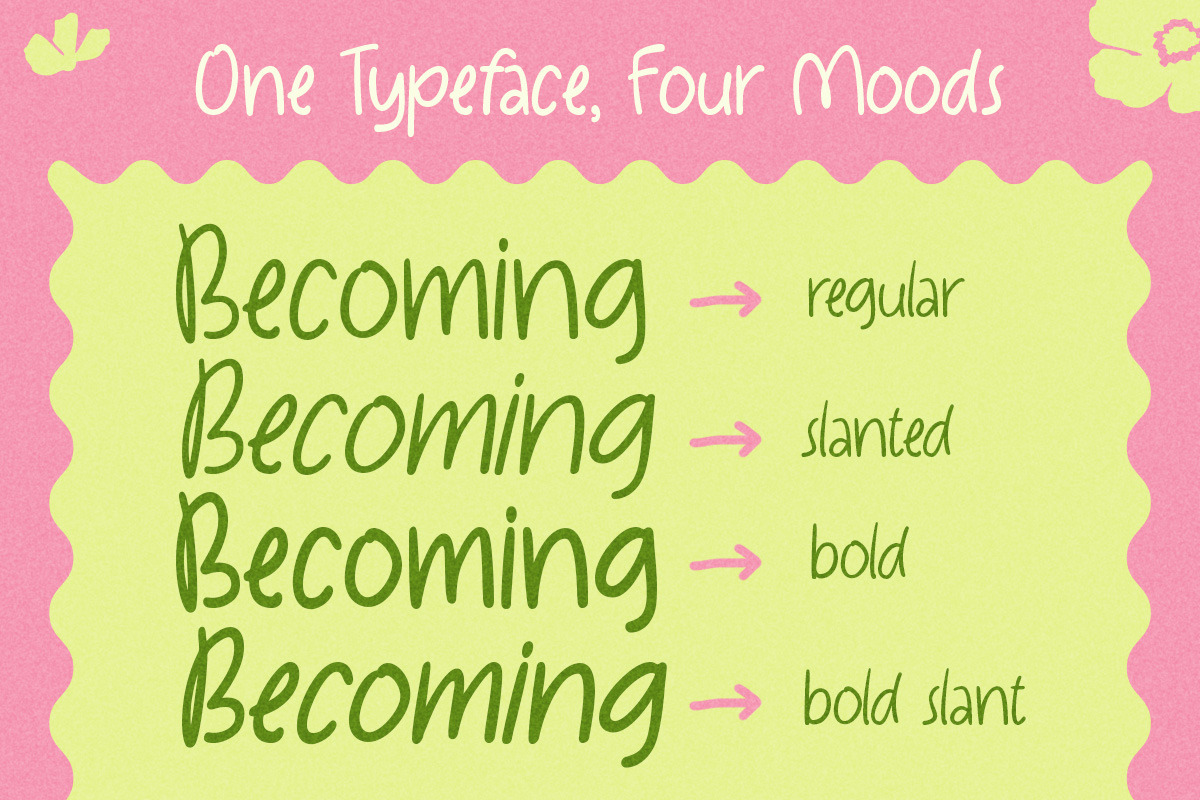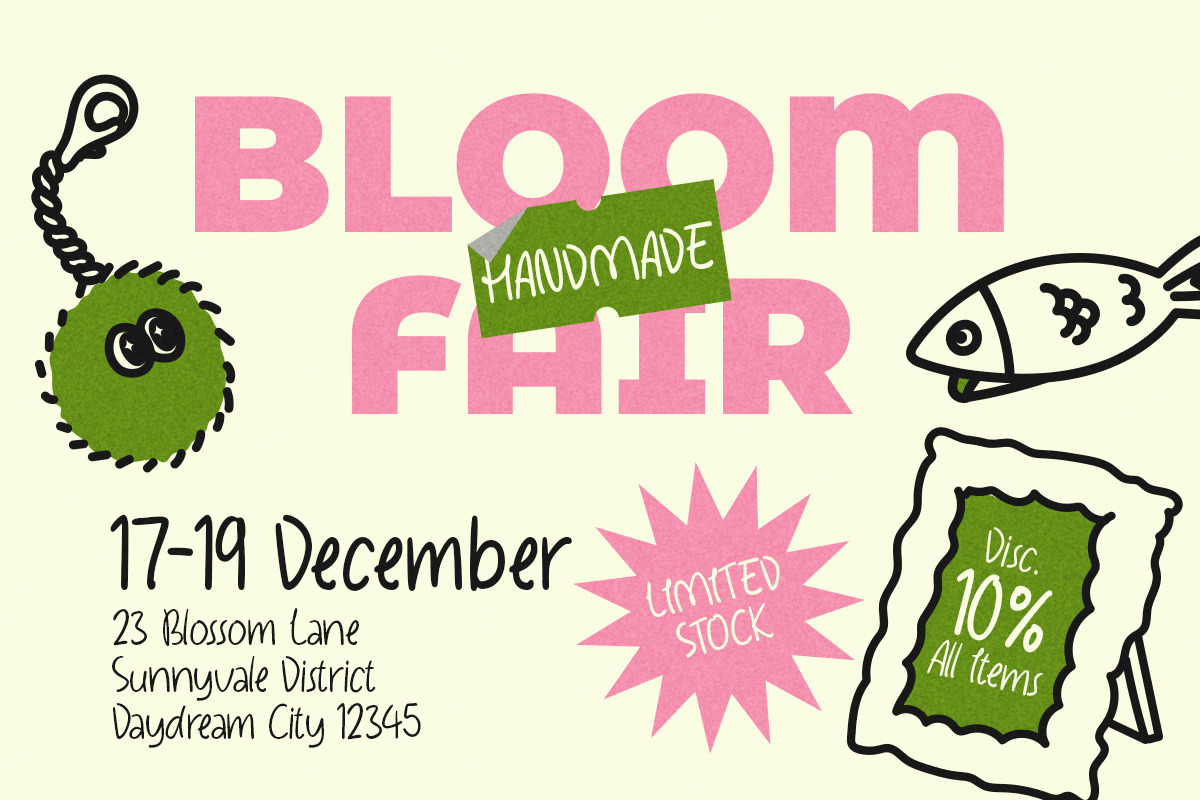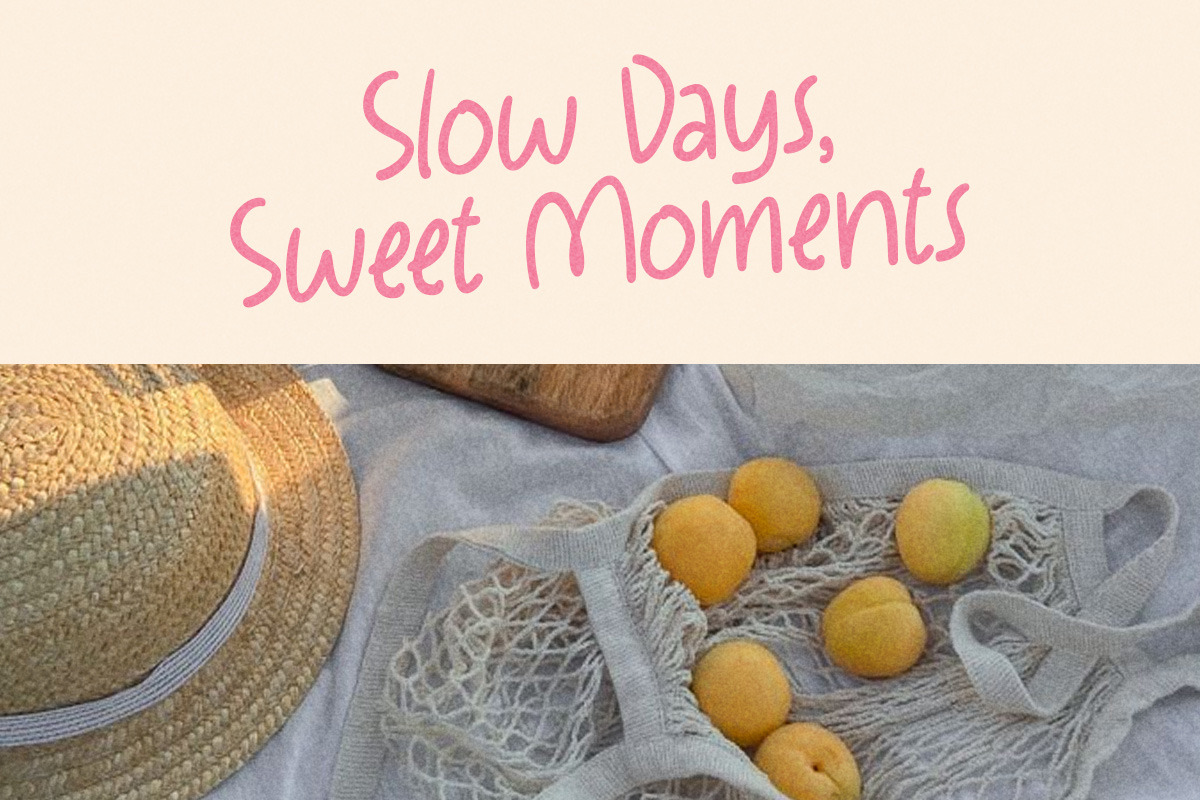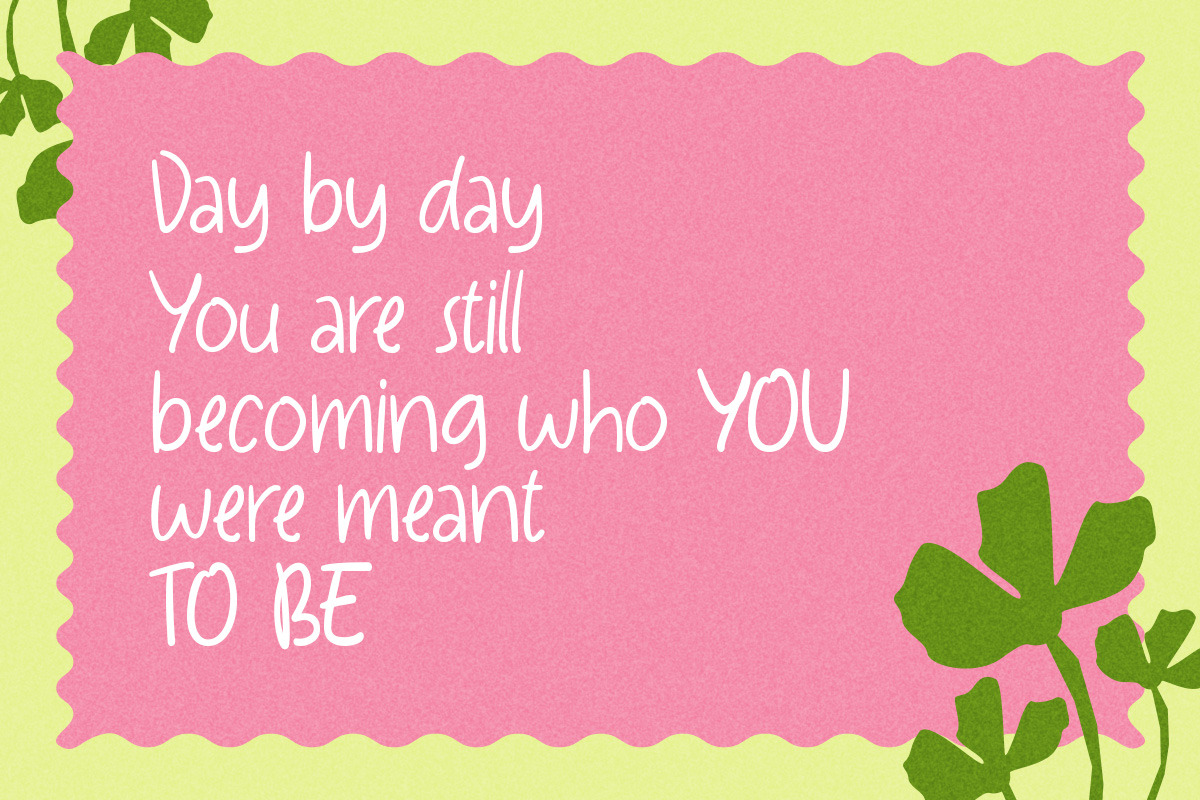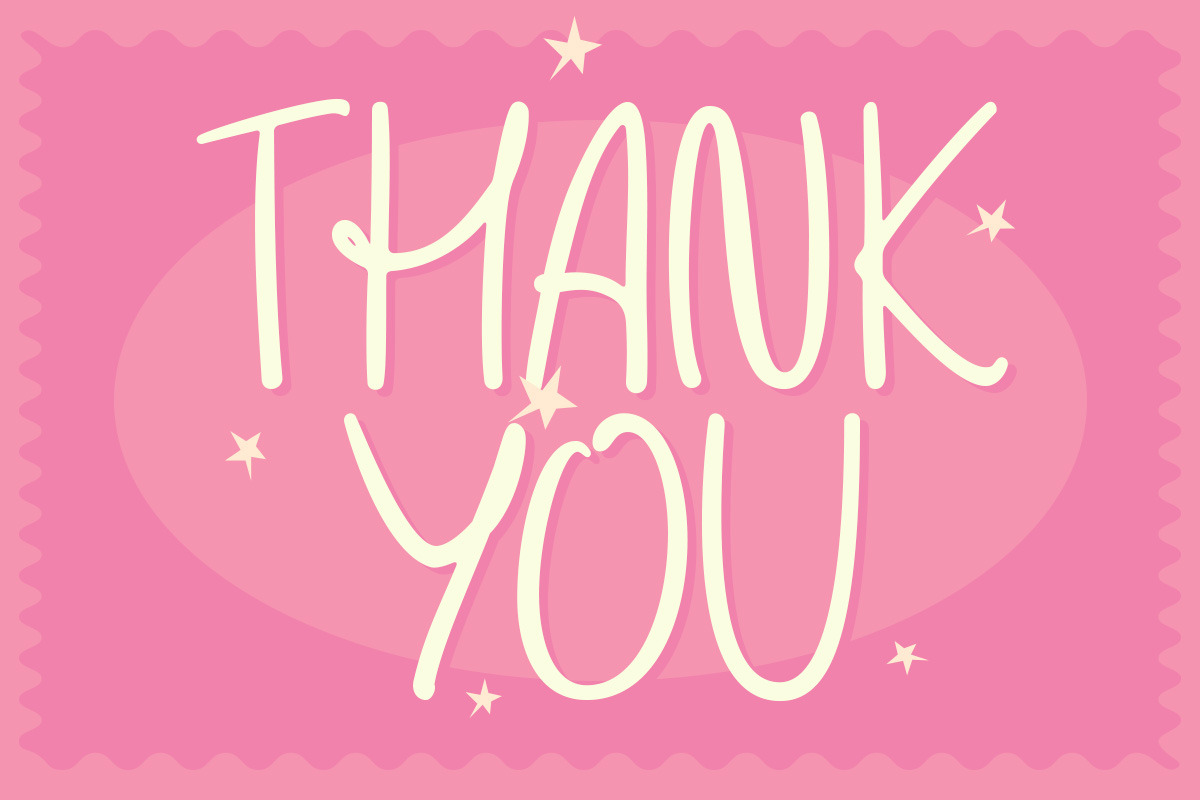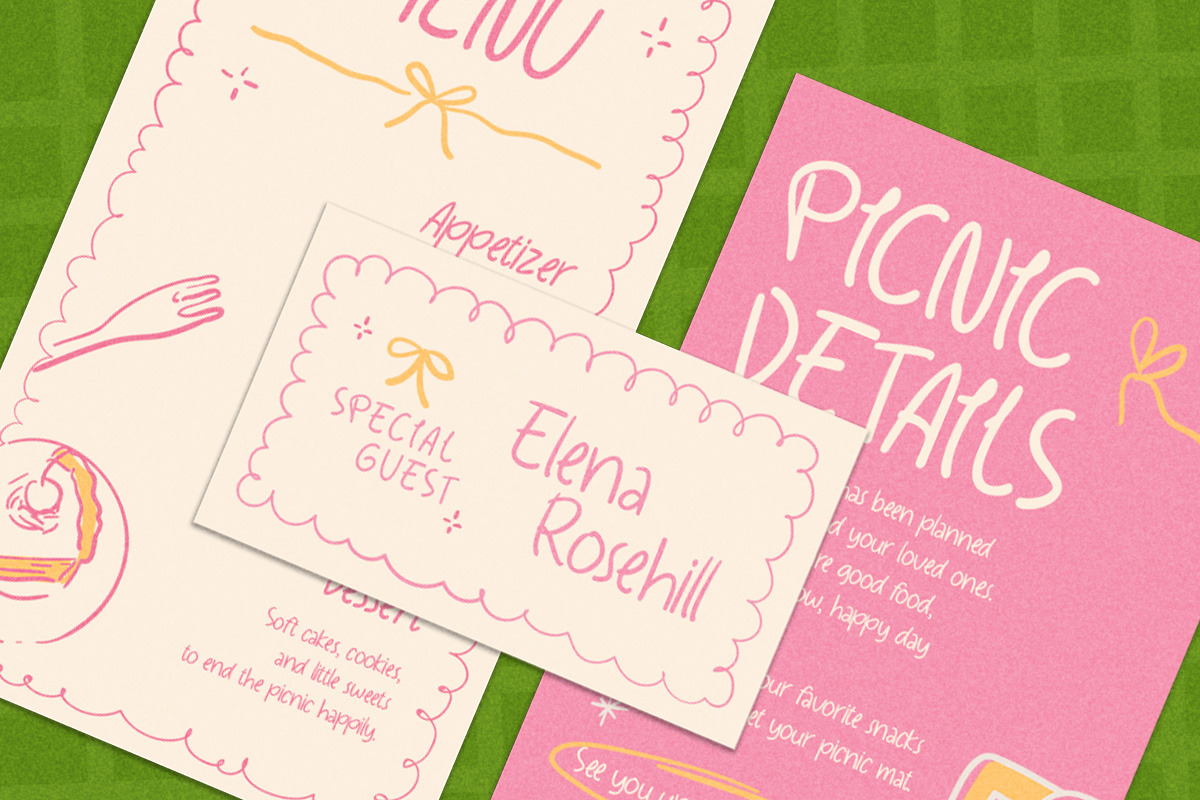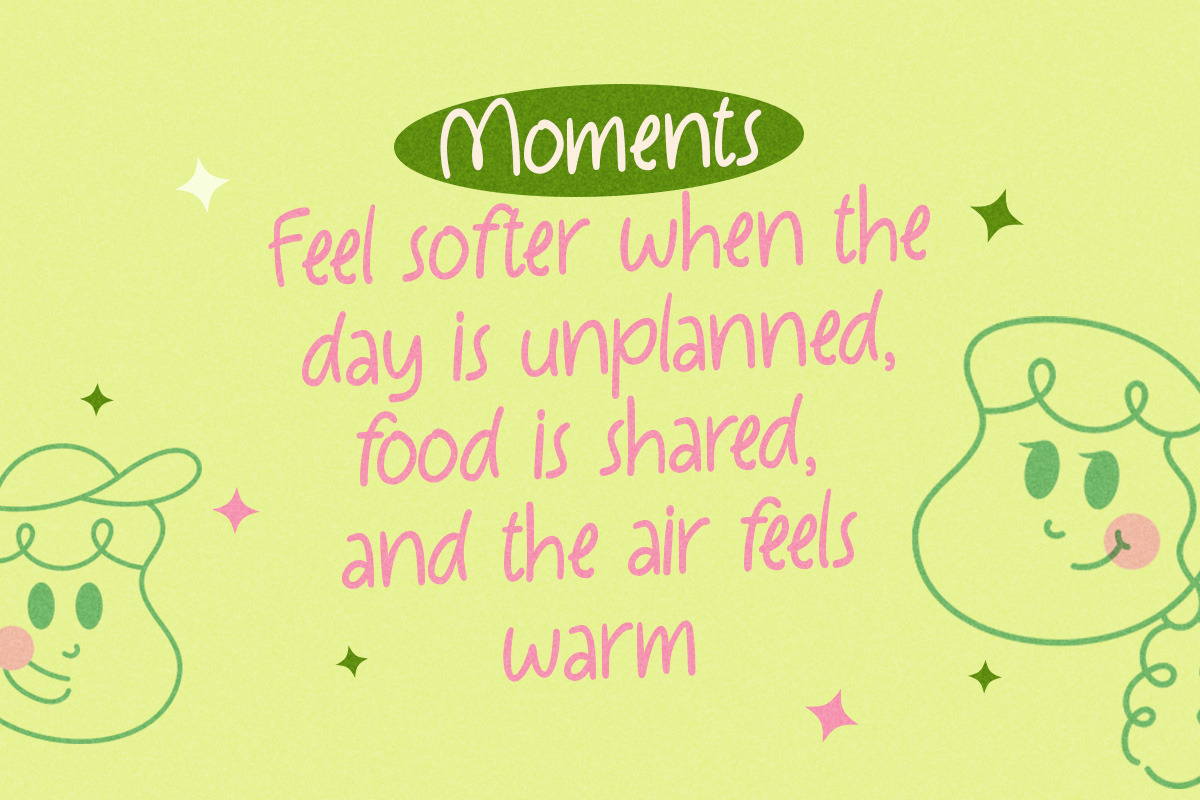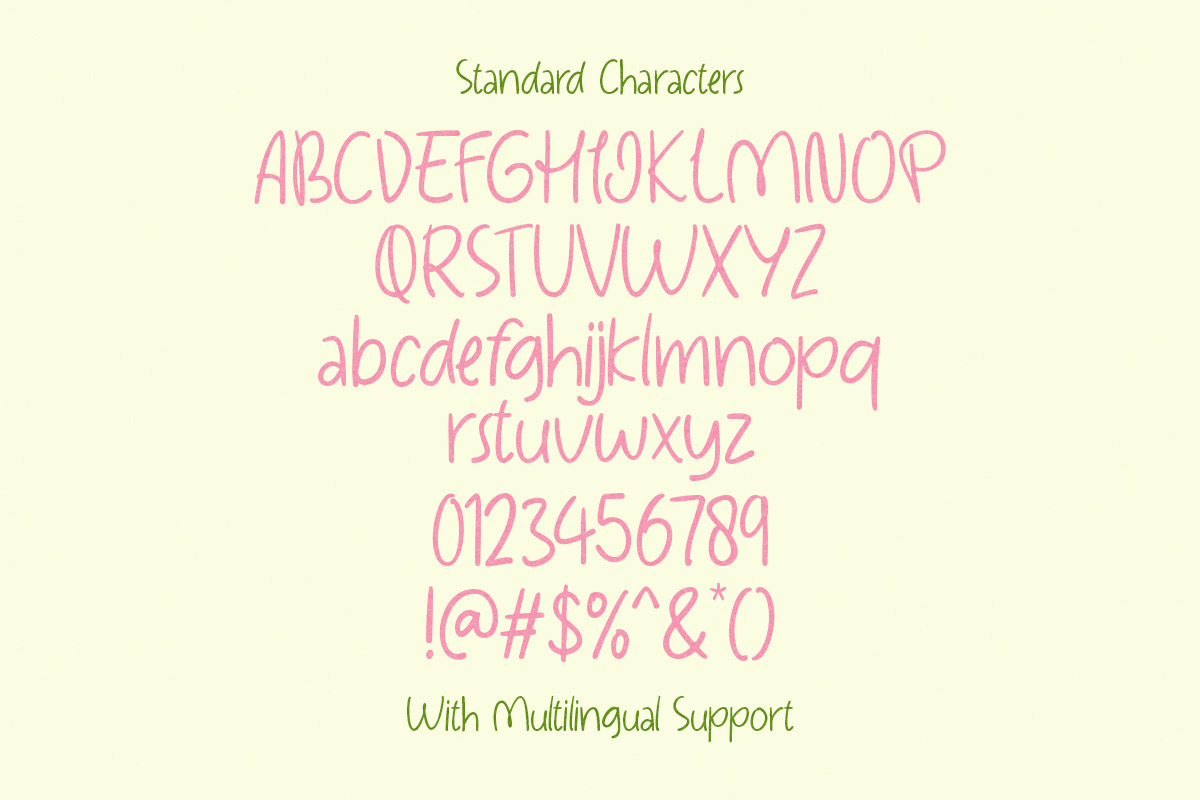
Lovely Picnic Handwritten - 4 Styles
Lovely Picnic is a cheerful handwritten font with soft strokes, rounded shapes, and a casual doodle feel that instantly brings a sweet, sunny mood. The letters look naturally drawn, slightly imperfect, and full of friendly warmth—perfect for playful designs that want to feel cute, relaxed, and inviting.